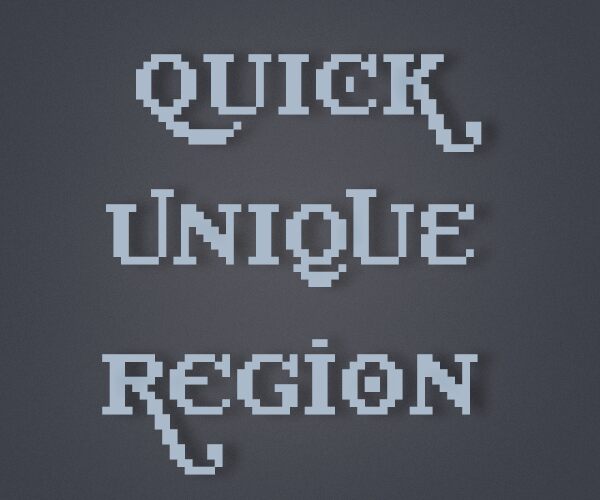
Belanidi Serif font by Yuri Hanshu is a free Gothic influence font inspired by the old days of Gothic typefaces. This pixel font is energetic and full of unexpected character that makes it stand out from other Gothic styled typefaces. With uppercase letters, this is one font that will truly amaze all those who read it!
This font works well when used in projects related to vintage gaming, the 90s, mystery, horror, science-fiction, aliens, and more. It can be used in designing posters, book covers, video games, and other similar projects.
Belanidi Serif is a distinctive 8-10 pixel style Serif font inspired by the bold aesthetic of IllusionSerif. The design specifically targets 10px for CJK scripts and 8px for other languages, ensuring versatility across various applications.
Originally created to adapt the full language text of Minecraft, this font also includes personalized extensions, such as the Kana Extension, enhancing its usability for different languages and contexts.